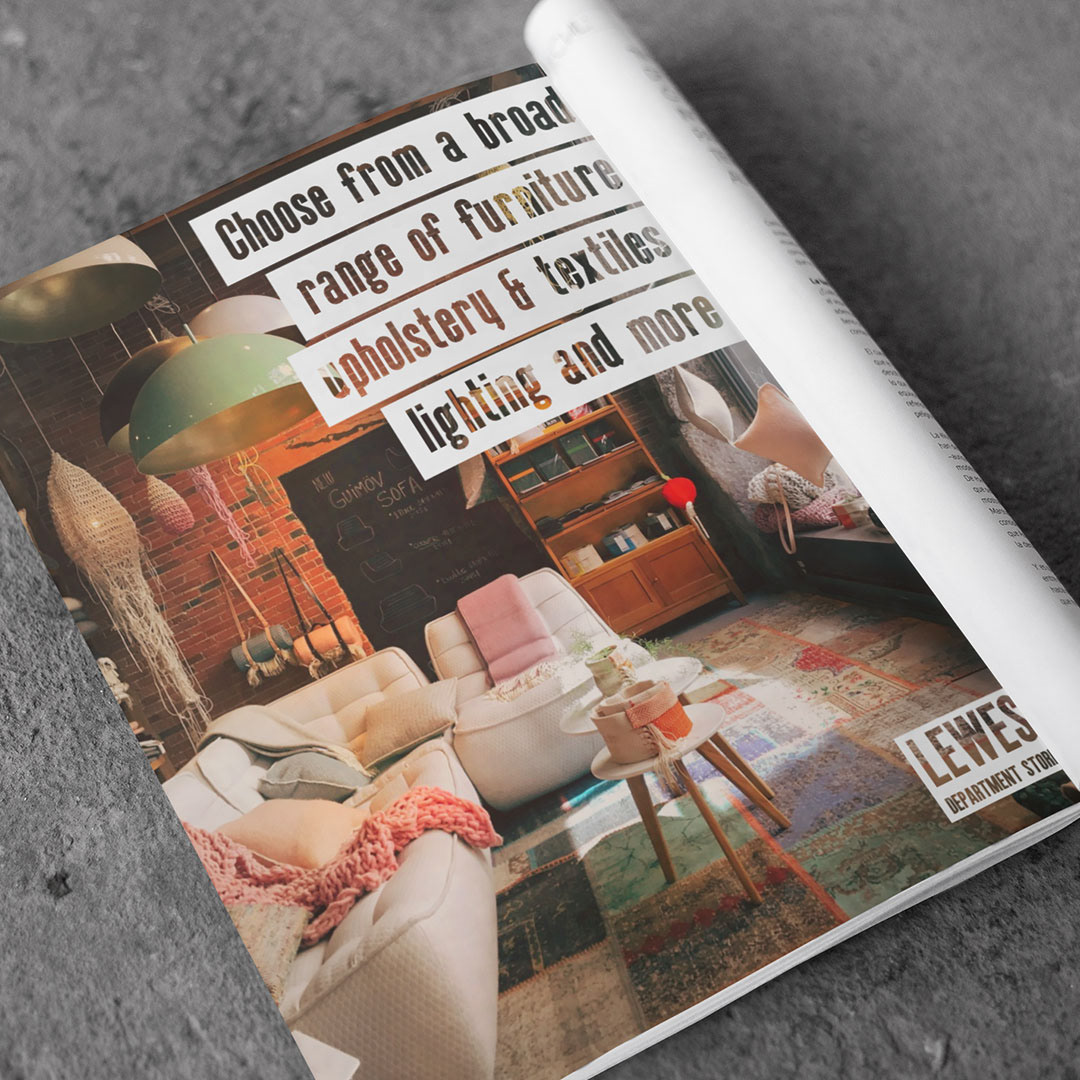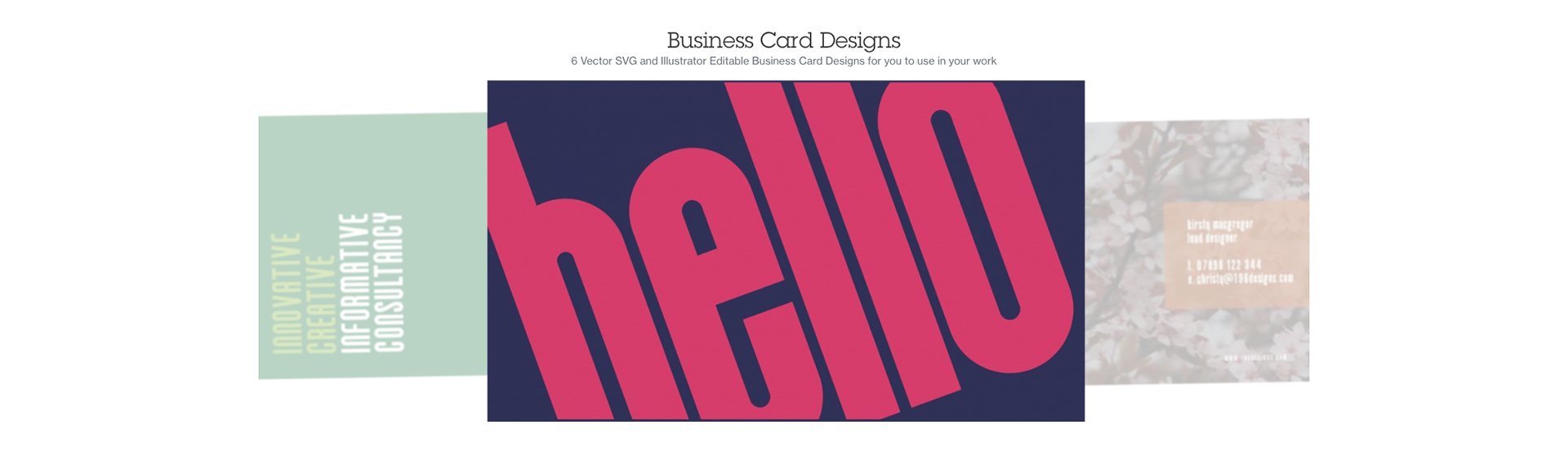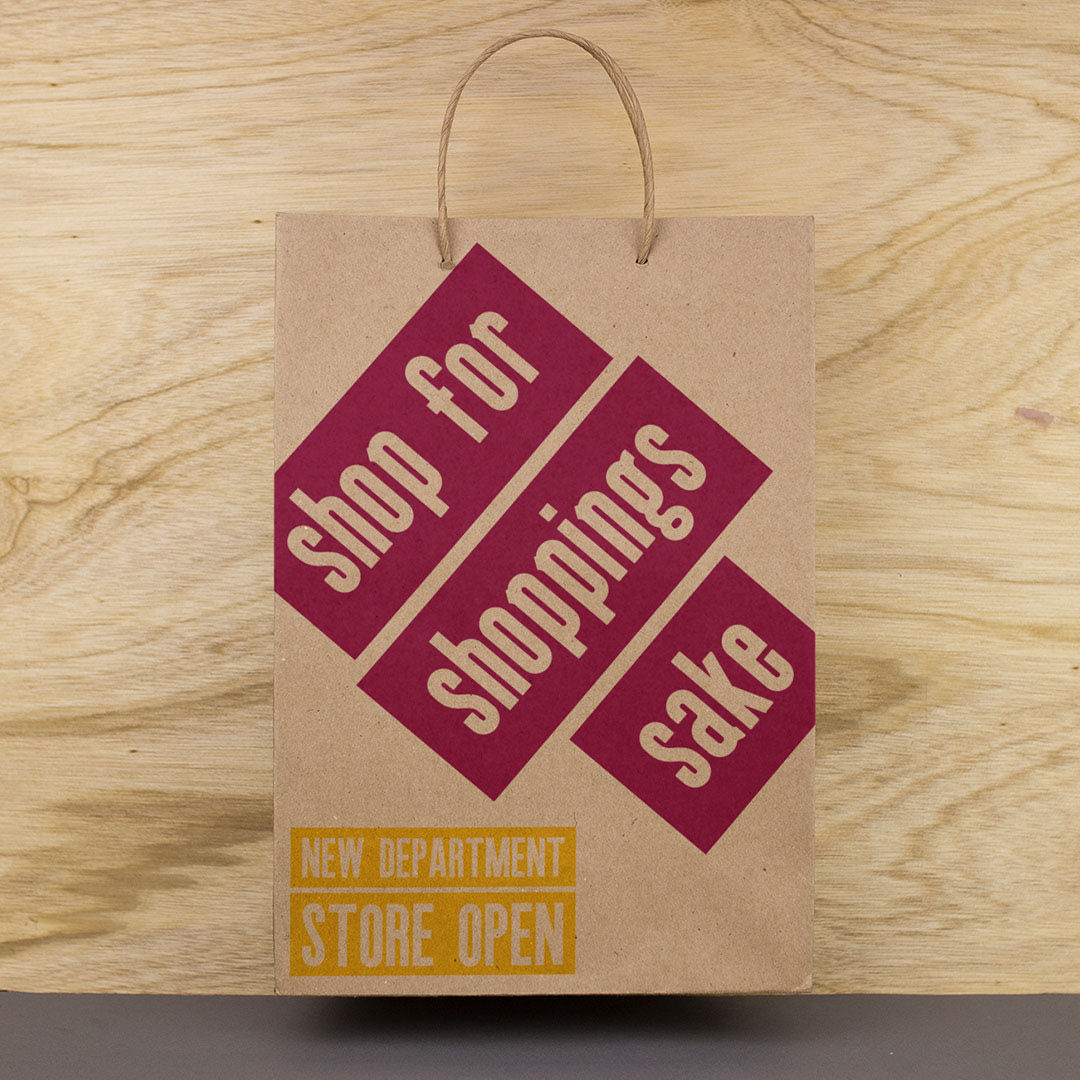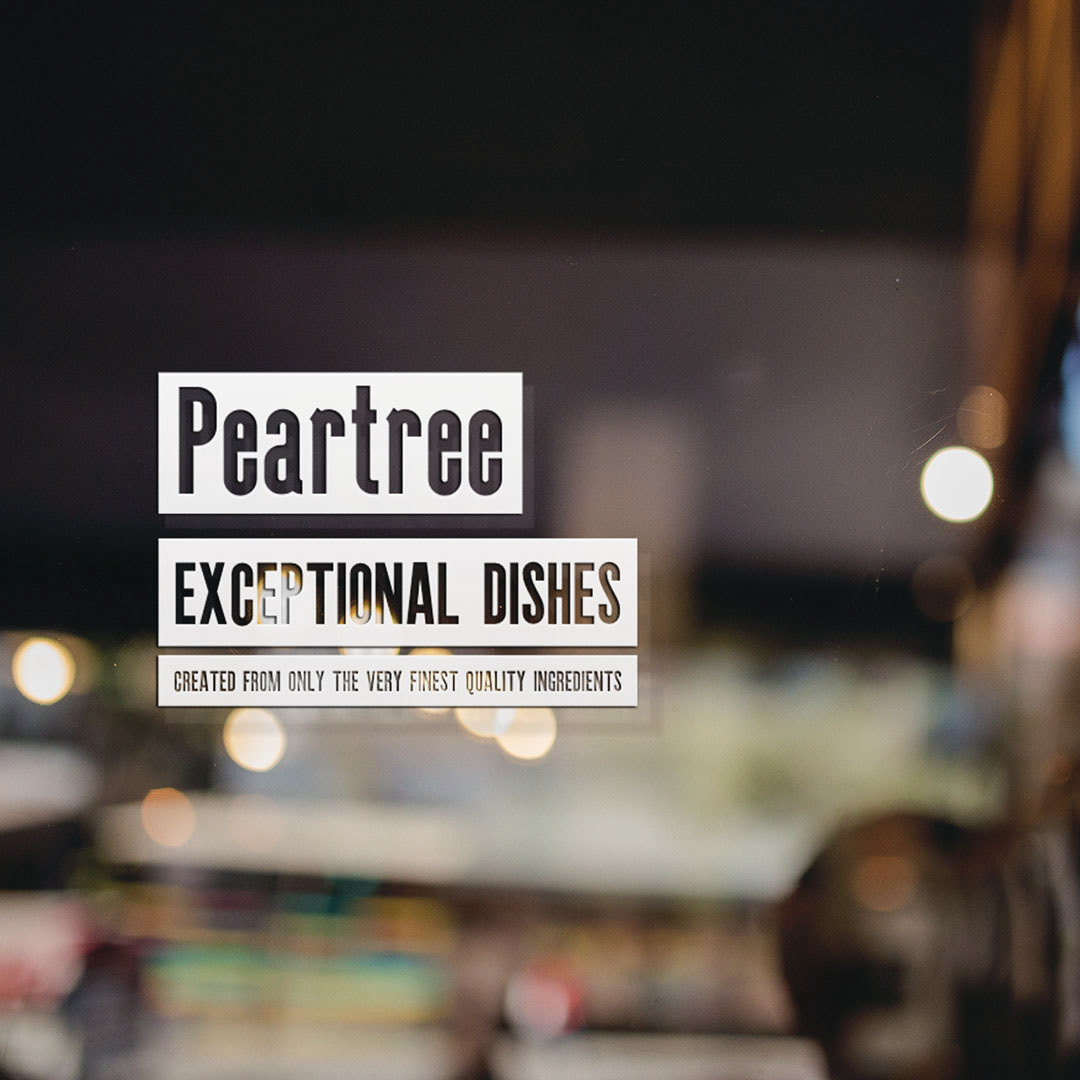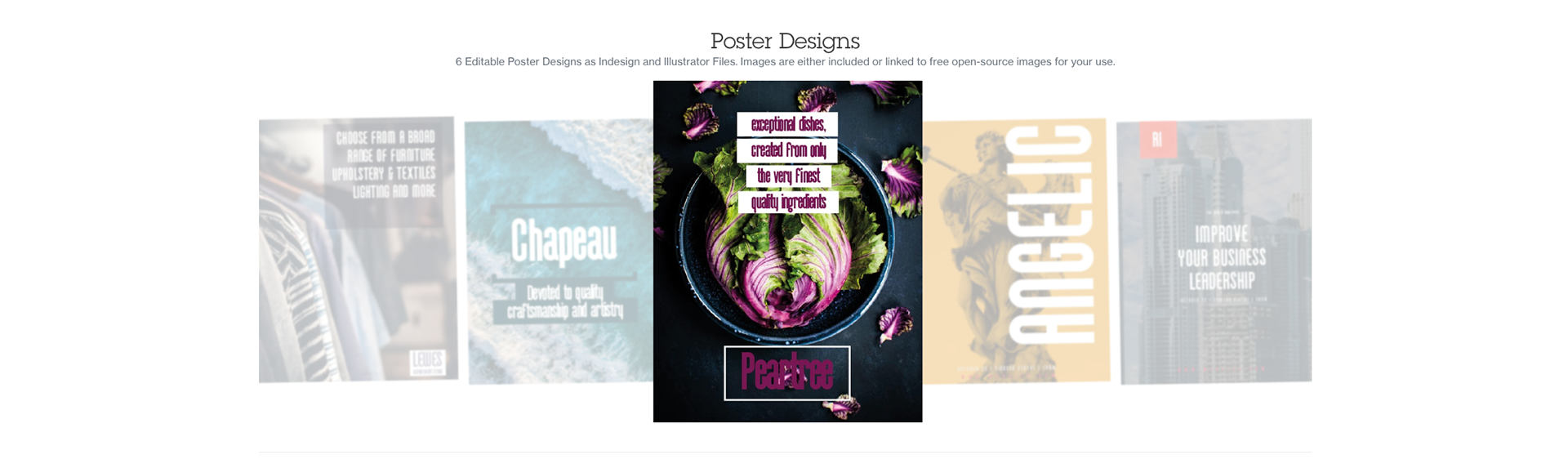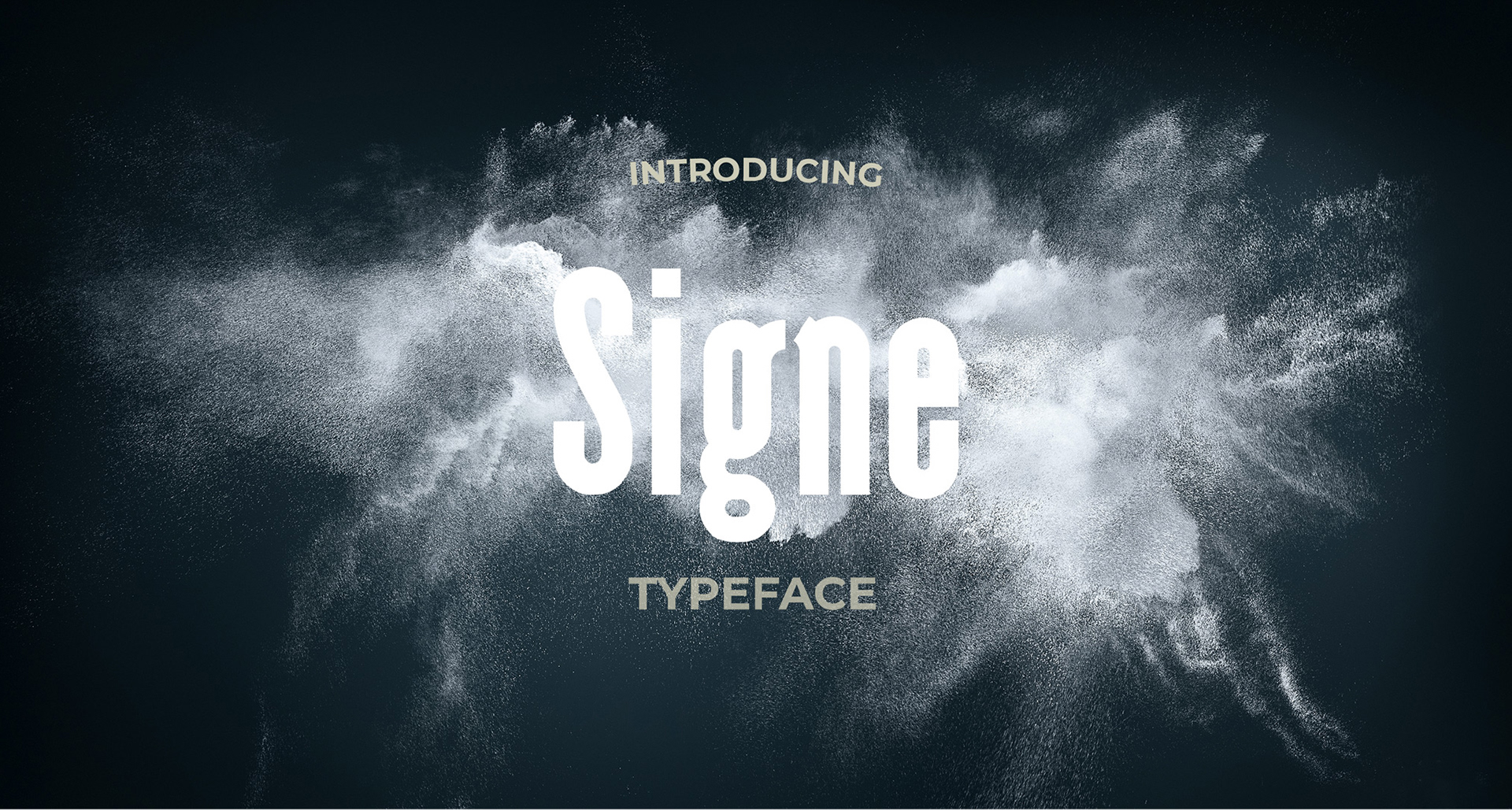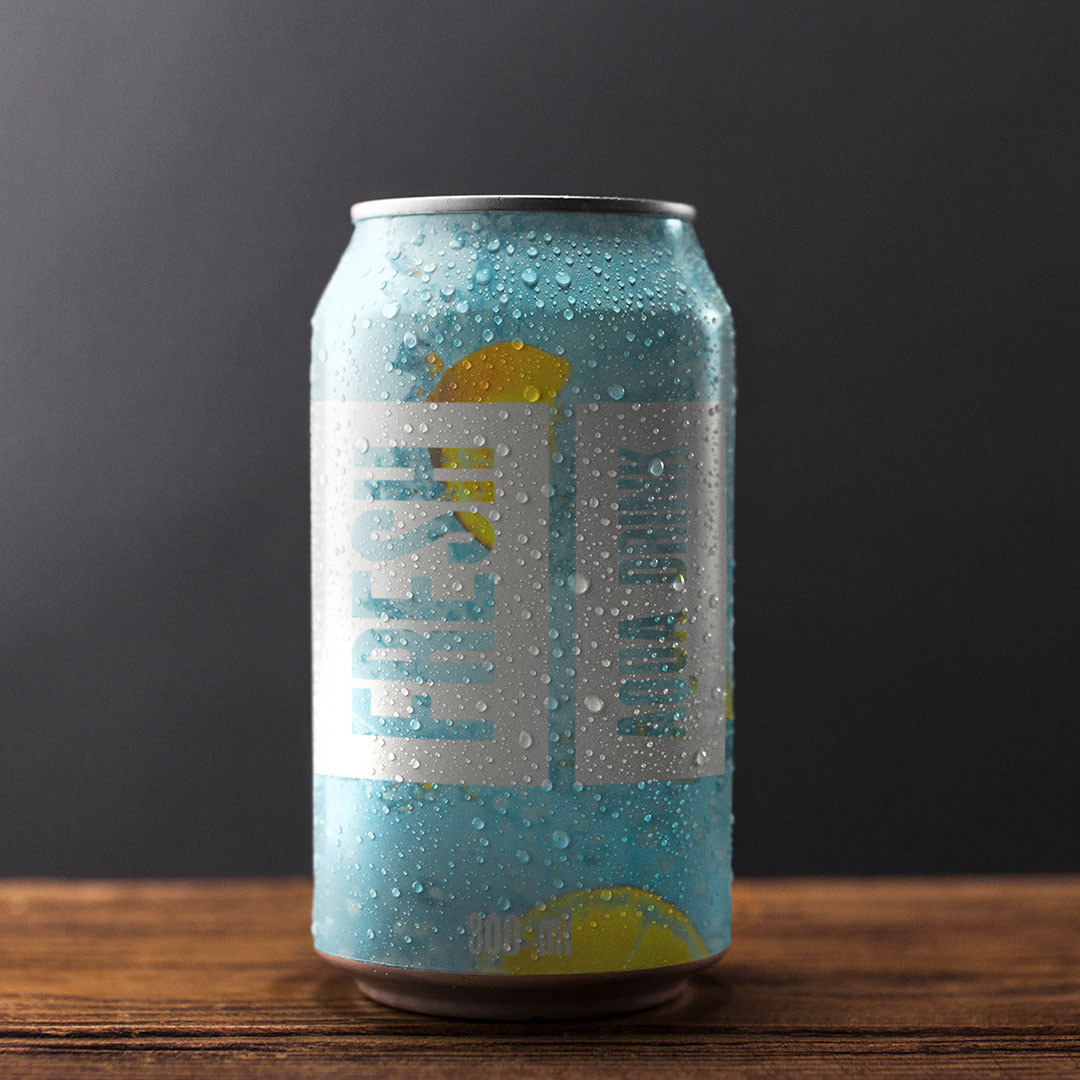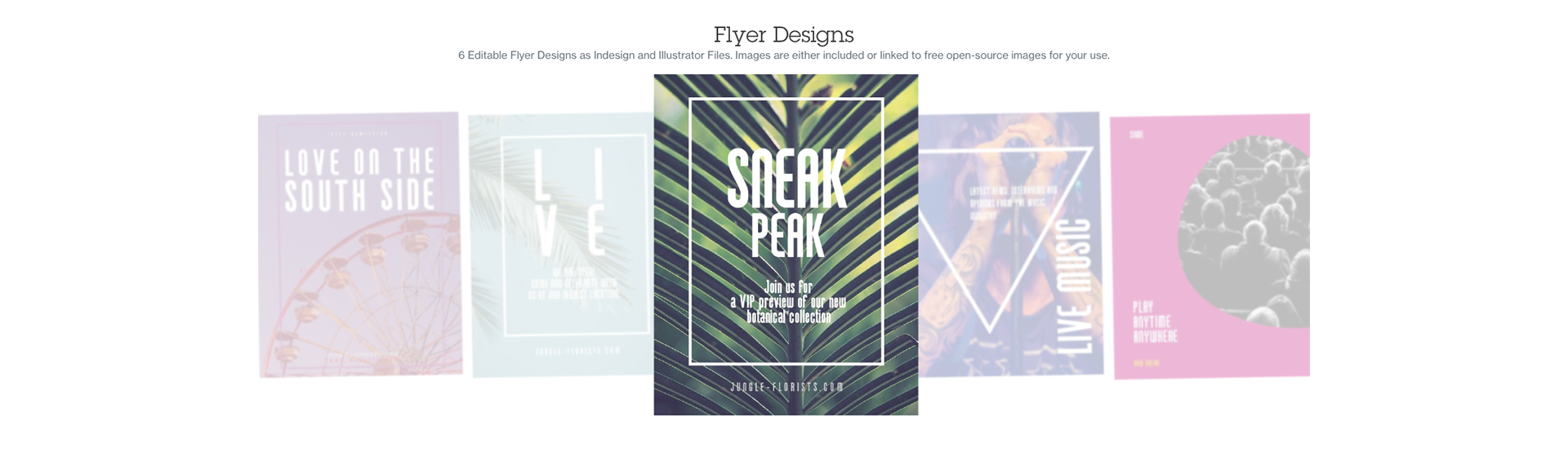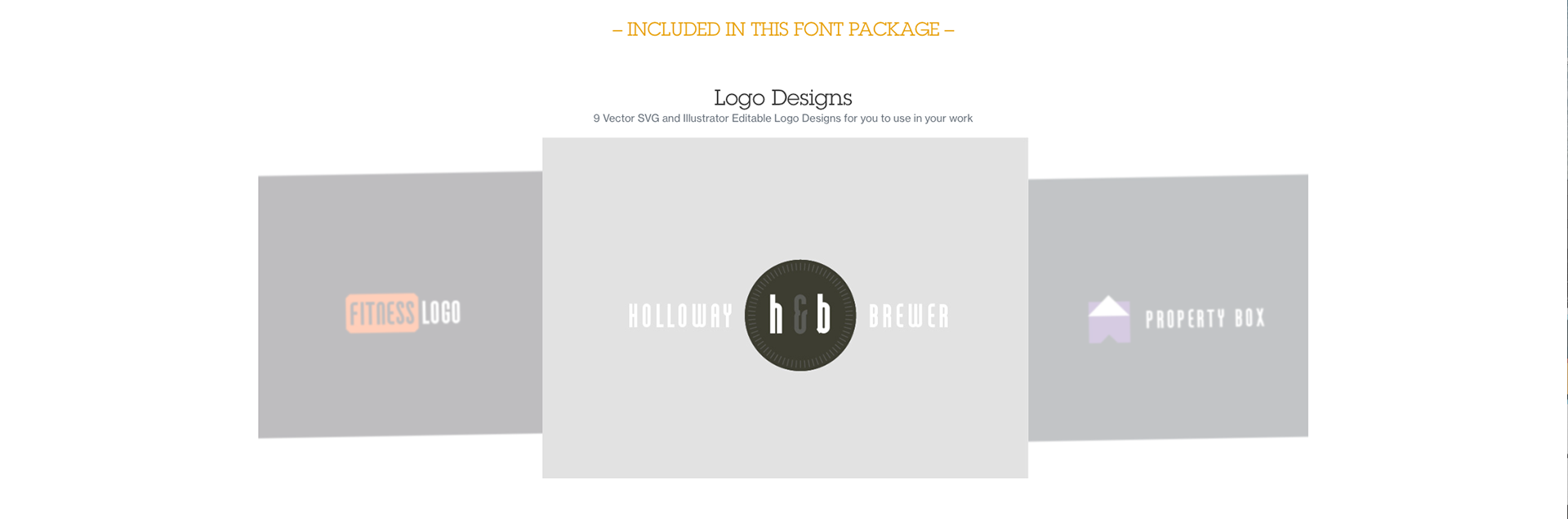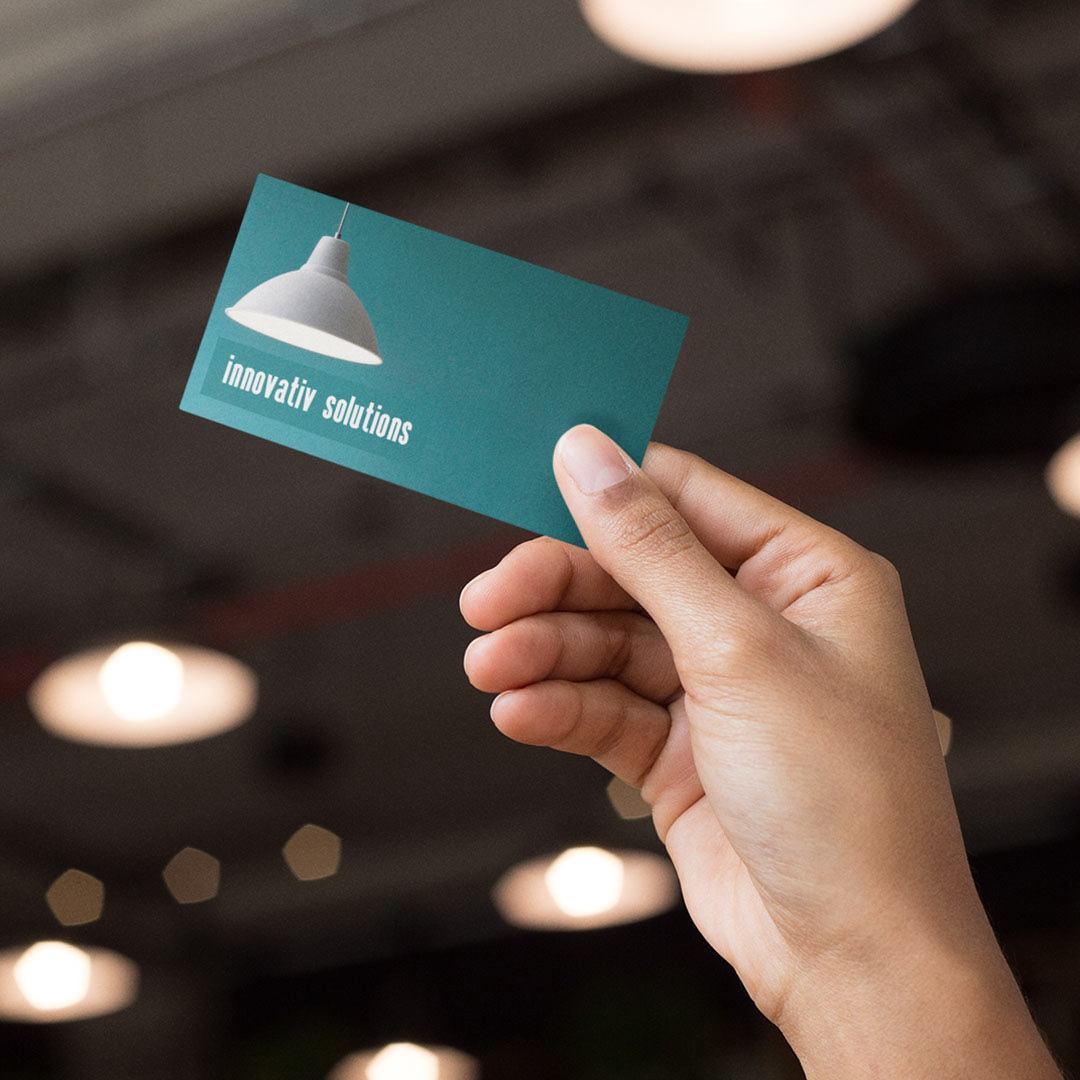
Signe is a Condensed Sans Serif font family by Craft Graphic. Condensed aspects of the font, combined with tight stems, tails and descenders and small flourishes to the serifs make this font great to use for a retro feel or a design with an edge.
Modern in style, bold in use for titles, headlines and great at large and small sizes, making it suitable for Web Print, Commercial and art.